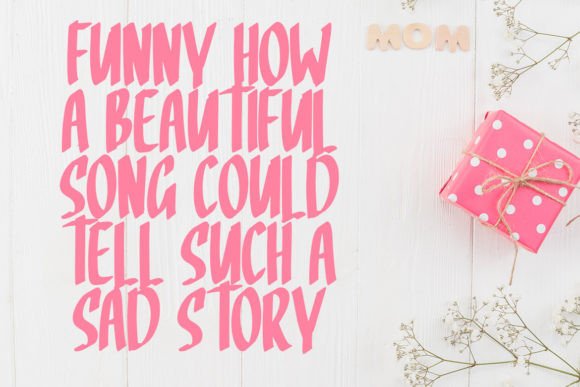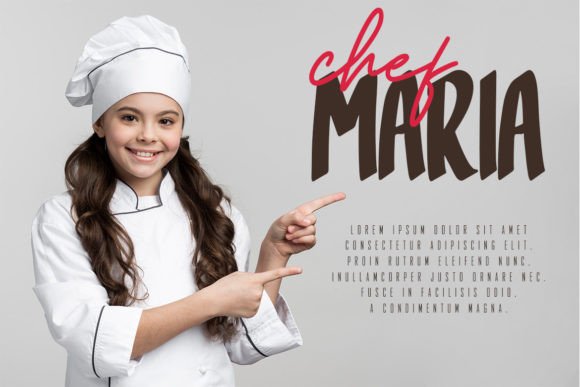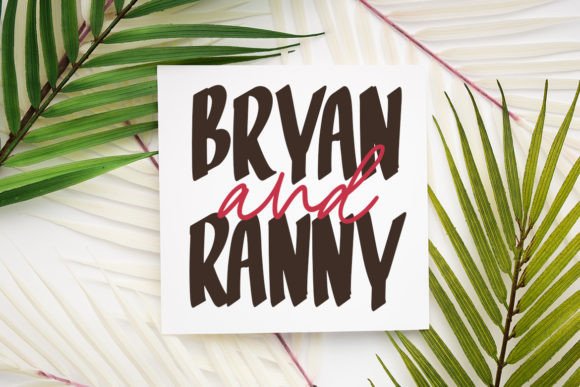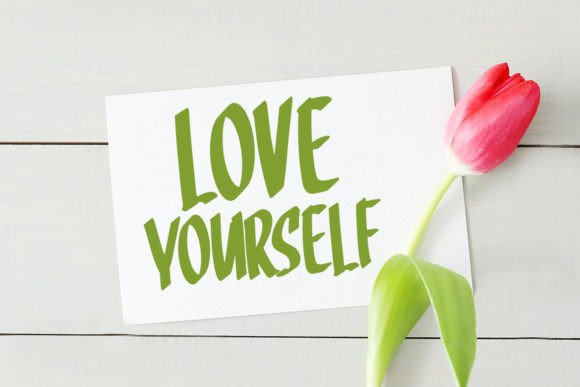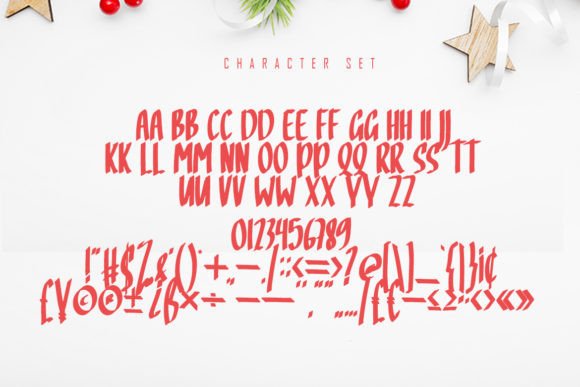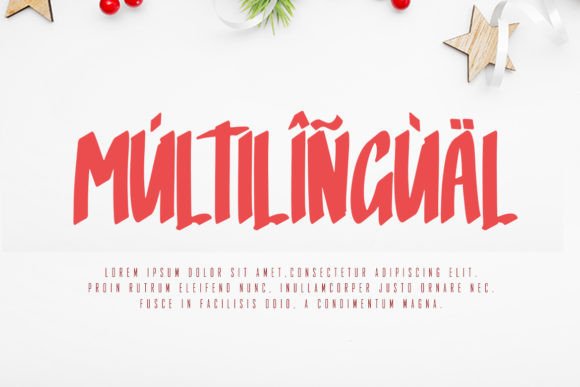
Introduction to Mukhair Font
Mukhair is a cool and bold sans serif font.
It looks beautiful on a variety of designs requiring a personalized style .
Key Features of Mukhair Font
Why Choose Mukhair Font?
Mukhair Font offers exceptional quality and versatility, making it a valuable addition to your design toolkit. Whether you’re creating for personal projects or commercial use, Mukhair Font delivers professional results.